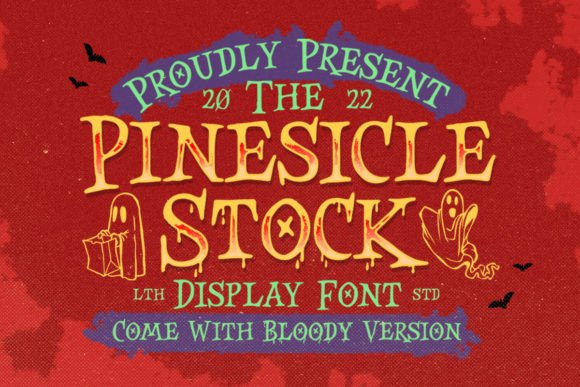
The Pinesicle Stock: A Unique Horror-Theme Font for Playful Design
When it comes to typography, the right font can make all the difference in a design. For those looking to add a touch of spooky charm with a playful twist, The Pinesicle Stock stands out as a distinctive choice. This cool display typeface combines elements of horror and fun, making it ideal for a range of creative projects that require a bold, eye-catching aesthetic.
What Is The Pinesicle Stock?
The Pinesicle Stock is a custom-designed font that blends the eerie atmosphere of horror with a lighthearted, whimsical vibe. Its unique character set features sharp edges, jagged lines, and subtle details that evoke a sense of mystery and playfulness. Whether you're designing for a Halloween event, a thriller-themed project, or simply looking to add some flair to your work, this font offers a versatile solution.
Unlike traditional horror fonts that may feel too dark or intense, The Pinesicle Stock balances its spooky elements with a more approachable style. This makes it suitable for a broader audience, including designers, marketers, and content creators who want to convey a sense of intrigue without being overwhelming.
Key Features and Characteristics
Where Can You Use The Pinesicle Stock?
The Pinesicle Stock is highly adaptable and can be used in a variety of contexts. Here are some common applications:
1. Halloween and Event Branding: Whether you're creating promotional materials for a haunted house, a seasonal event, or a themed party, this font adds an instant sense of excitement and mystery.
2. Thematic Web Design: Websites focused on horror, fantasy, or thriller genres can benefit from the font’s ability to draw attention and create a memorable visual identity.
3. Print Media: Posters, flyers, and brochures that aim to capture a spooky or adventurous theme can use The Pinesicle Stock to enhance their overall look and feel.
4. Game and App UI: Developers working on games or apps with a horror or adventure theme might find this font useful for titles, menus, or in-game text.
Business owners and marketing professionals can also leverage The Pinesicle Stock to create eye-catching logos or social media graphics that stand out in a crowded digital space.
Who Benefits From Using The Pinesicle Stock?
This font is particularly beneficial for:
It's also a great option for students or hobbyists exploring typography and design, offering a blend of creativity and functionality.
Strengths and Considerations
The Pinesicle Stock has several strengths that make it a compelling choice for many users:
However, there are a few considerations to keep in mind:
Despite these limitations, The Pinesicle Stock remains a valuable tool for those seeking to add a unique, thematic touch to their work.
Real-World Applications
Here are a few examples of how The Pinesicle Stock can be applied in real-world scenarios:
These examples illustrate the versatility and effectiveness of The Pinesicle Stock in different creative contexts.
Evaluating Suitability for Your Projects
Before deciding to use The Pinesicle Stock, consider the following factors:
By carefully evaluating these aspects, you can make an informed decision about whether The Pinesicle Stock is the right choice for your specific needs.
In conclusion, The Pinesicle Stock offers a unique blend of horror and playfulness that can elevate a wide range of design projects. Its distinctive look and versatility make it a valuable addition to any designer’s toolkit, provided it is used thoughtfully and appropriately. Whether you're creating for fun, business, or professional purposes, this font provides a fresh and engaging way to express your creative vision.